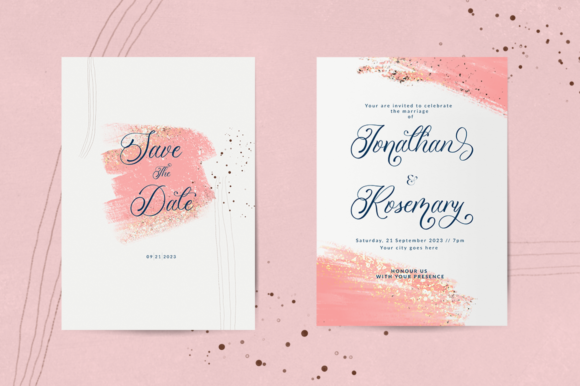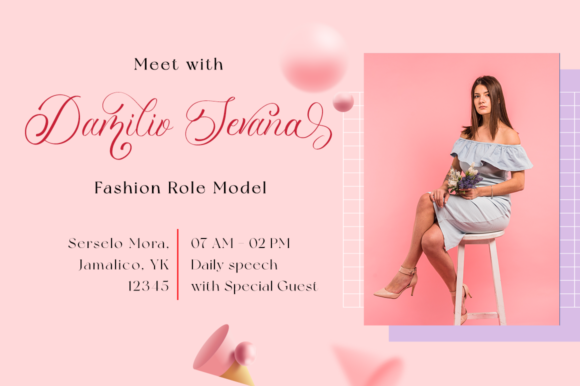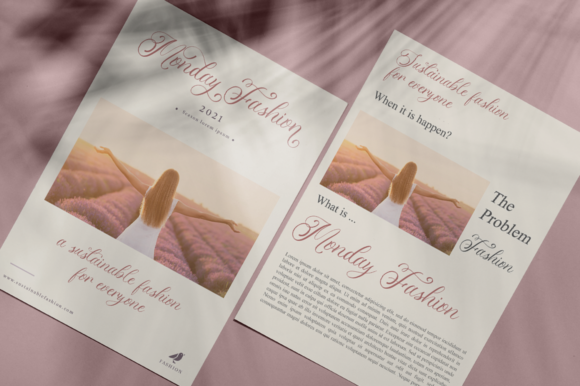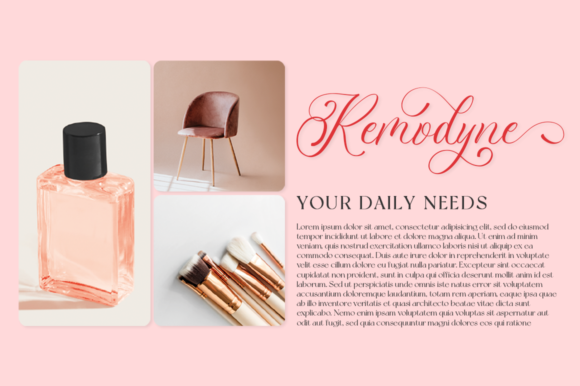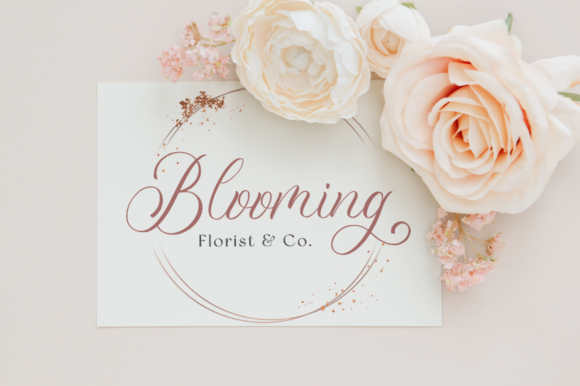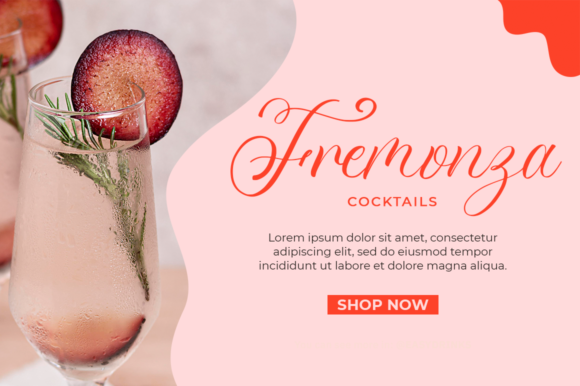
Introduction to Mariposa Font
Have you ever stumbled upon a font that instantly transports you to a world of elegance and refinement? For many designers, this moment of serendipity is a treasure trove of inspiration. And for those who’ve discovered the Mariposa Font, that moment is nothing short of magical.
The Mariposa Font is a delicate script font that exudes class and sophistication, making it the perfect addition to any design project. Whether you’re working on a wedding invitation, a fashion brand, or a creative magazine, this lovely font is sure to bring a touch of refinement to your work.
Key Features of Mariposa Font
- Unique, hand-drawn design with a transparent background, perfect for adding a personal touch to your work.
- Features a high-resolution design, suitable for both print and digital applications.
- Designed to be versatile and adaptable, making it a great addition to any design project.
Honest Review: Mariposa Font
As a designer, I’m always on the lookout for high-quality design resources to elevate my creative projects. Recently, I stumbled upon the Mariposa Font, and I’m excited to share my honest review with you.
Here are some things that work well with the Mariposa Font:
- ✨ Beautiful, hand-drawn illustrations that add a touch of whimsy to any design
- ✨ High-quality vectors that can be scaled up or down without losing any detail
Overall, I think the Mariposa Font is a great addition to any designer’s toolkit. While it may not be perfect, its unique illustrations and high-quality vectors make it a valuable resource for creative projects. If you’re looking for a fun and creative font, I’d definitely recommend giving it a try.
The Mariposa Font is a high-quality, versatile design resource perfect for various creative projects. It features a transparent background, making it easy to use in different design contexts.
Tips for Getting the Most Out of Mariposa Font
Experiment with different font sizes, colors, and combinations to achieve the desired look. Use it to add a touch of elegance and sophistication to your designs.
The Mariposa Font is ideal for:
- Photography and art projects
Alternatives to Mariposa Font
Great Vibes is a high-quality, cursive script font that’s perfect for creative projects, such as wedding invitations, menus, and packaging design. It features a transparent background, making it ideal for overlaying on images or backgrounds. Great Vibes is a great alternative to Mariposa Font for designers looking for a more elegant and sophisticated feel.
Alex Brush is a beautiful, handwritten font that’s great for design projects requiring a personal touch. It’s available for free download and can be used for a variety of creative projects, such as branding, signage, and stationery design. Alex Brush is a good substitute for Mariposa Font when you need a more whimsical and artistic feel.
Carolyna Pro is a high-quality, elegant script font that’s perfect for design projects requiring sophistication and refinement. It features a transparent background, making it ideal for overlaying on images or backgrounds. Carolyna Pro is a good alternative to Mariposa Font for designers looking for a more luxurious and high-end feel.
Ostrich Sans is a high-quality, sans-serif font that’s great for design projects requiring a clean and modern look. It’s available for free download and can be used for a variety of creative projects, such as branding, packaging, and editorial design. Ostrich Sans is a good substitute for Mariposa Font when you need a more minimalist and versatile font.